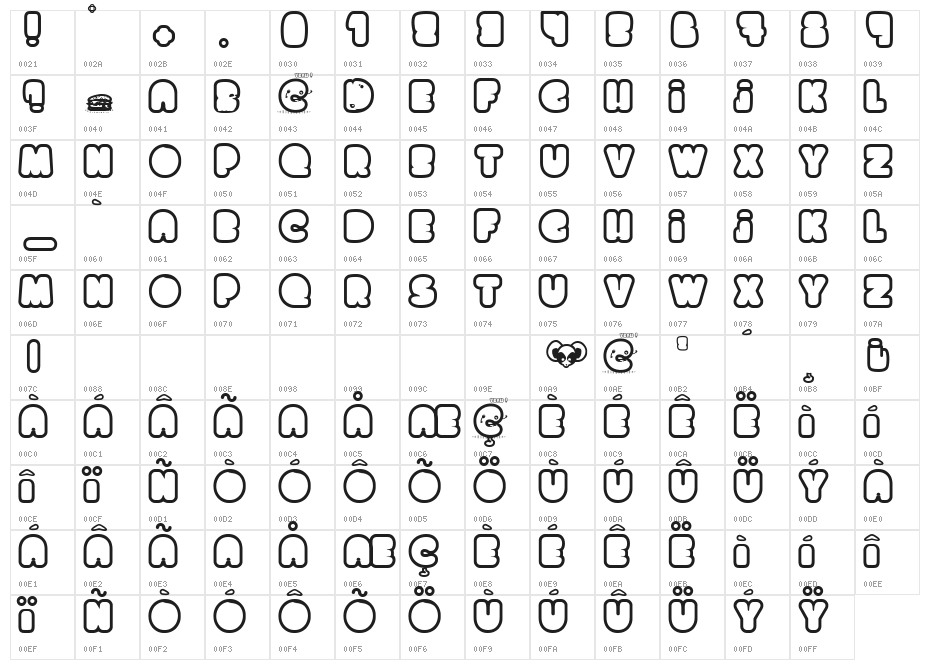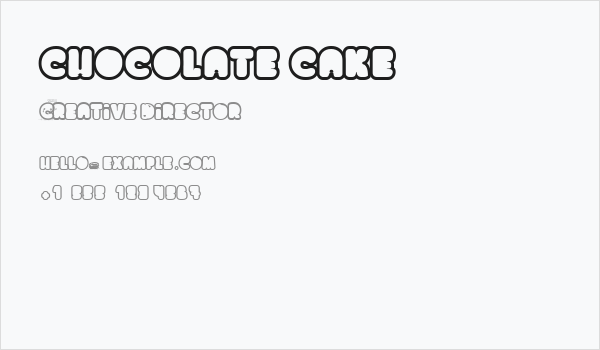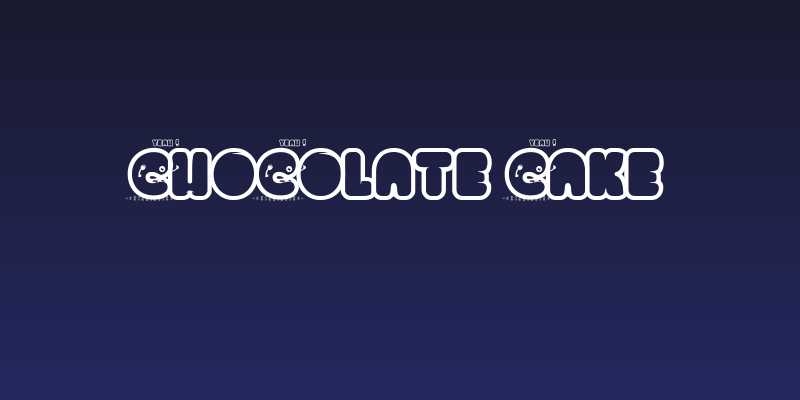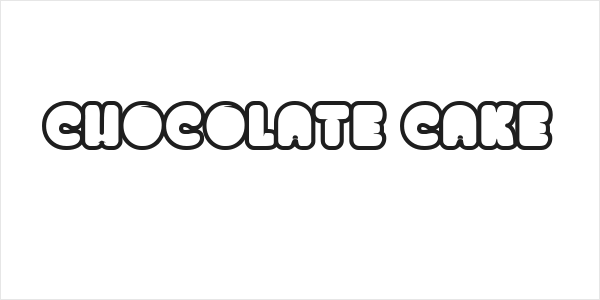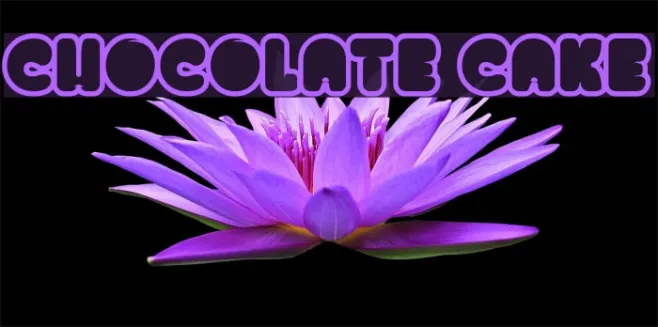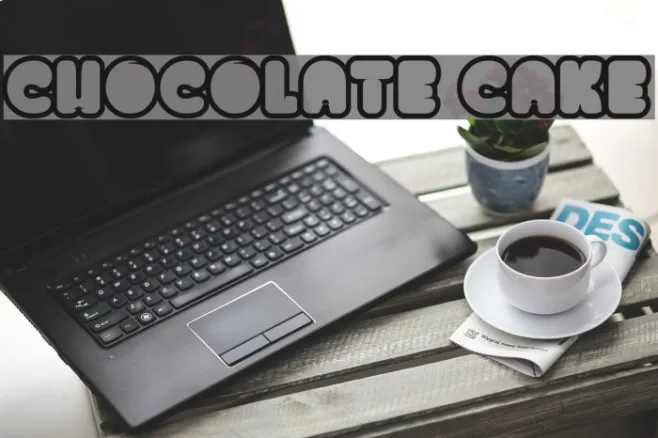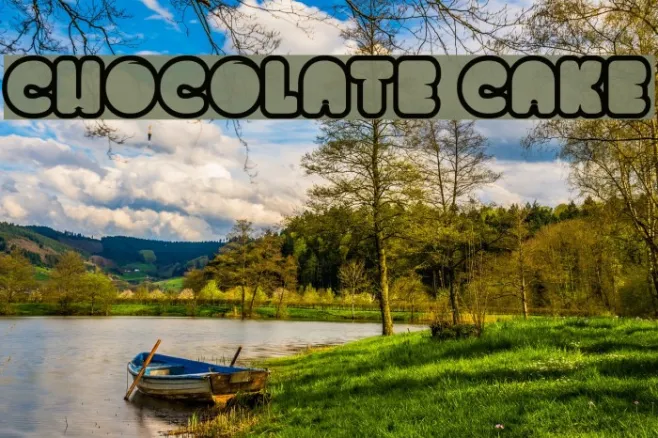
chocolate cake Font
chocolate cake Description
This playful and bold font features rounded, bubble-like characters that convey a sense of fun and whimsy. The letters are thick and have a consistent stroke width, giving them a strong presence on the page. The uppercase and lowercase letters maintain a uniform style, with the lowercase letters being slightly smaller but equally robust. The numbers and special characters follow the same design principles, ensuring a cohesive look across all text elements. This font's unique style makes it stand out, making it ideal for projects that require a touch of creativity and boldness.
| Overall Style | Playful, Fun |